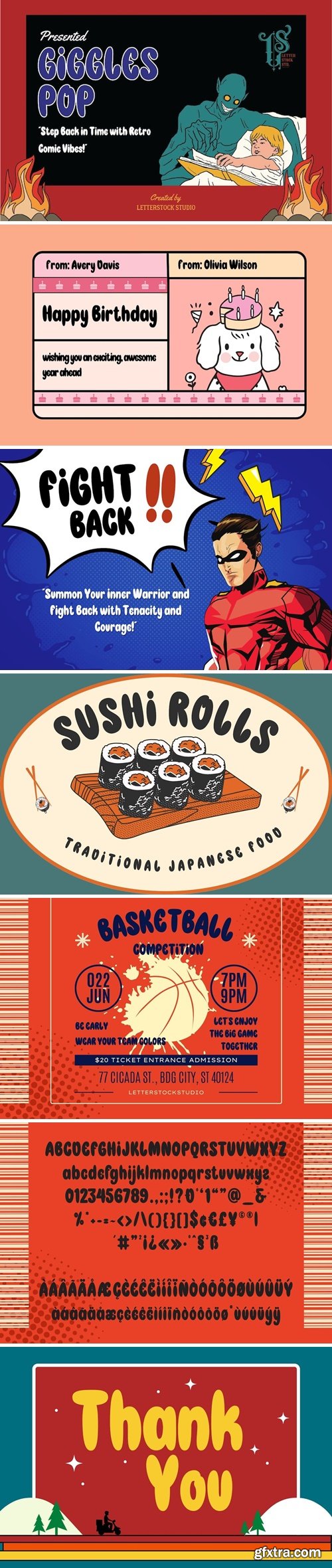
giggles pop 字体
Step into a world of nostalgia with “Giggles Pop,” a charming retro comic font designed to infuse your designs with a dose of playful elegance. Perfect for creating captivating retro posters, inviting invitations, and eye-catching social media posts, this font exudes the essence of hand-drawn, decorative retro typography.